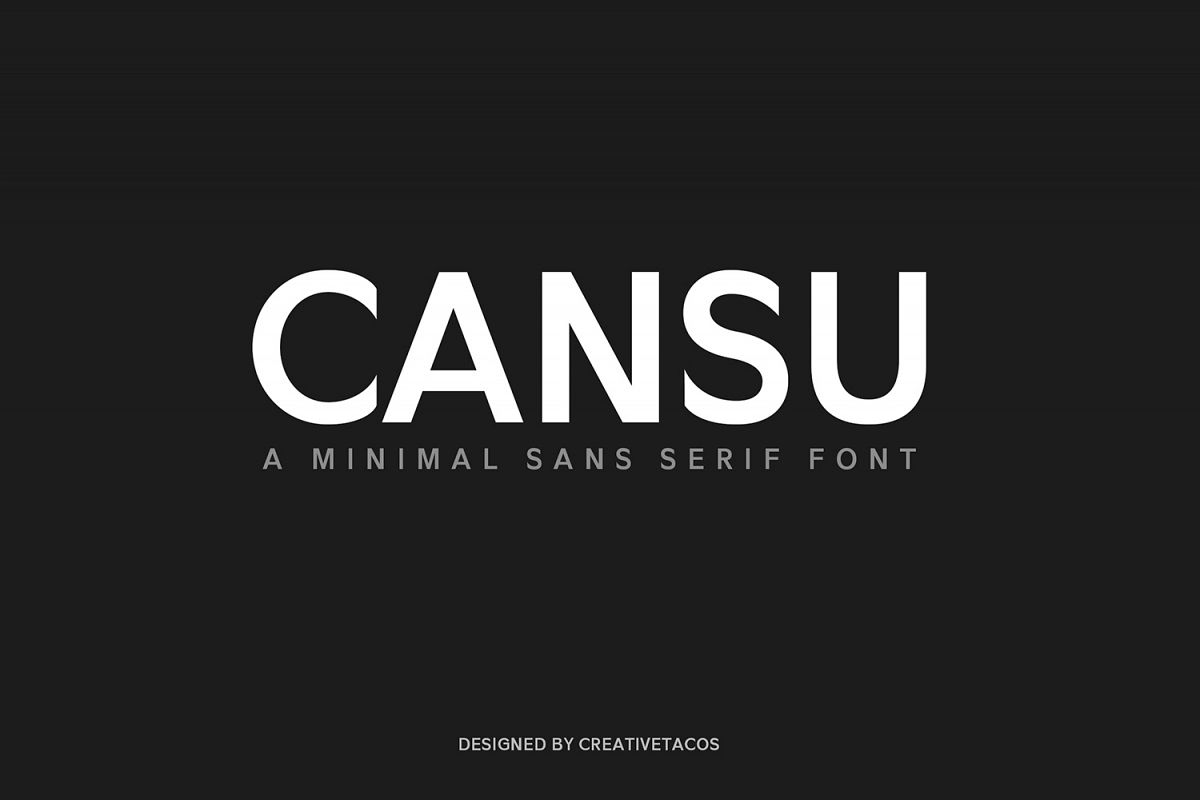
Cansu Sans Serif Font Family
Cansu is a classy minimal rounded sans serif typeface. It comes with 5 weights: Regular, Light, Round, Outline and Bold versions, which contains complete basic glyphs with multilingual support. Cansu will be perfect for packaging, presentations, logo, headlines, lettering, posters, branding, quotes, titles, magazines headings, web layouts, advertising, invitations, packaging design, books, and nearly any creative design.
Cansu Font Features:
• Uppercase Letters
• Lowercase Letters
• Non English Characters ( Latin Supplement + Latin Extended A)